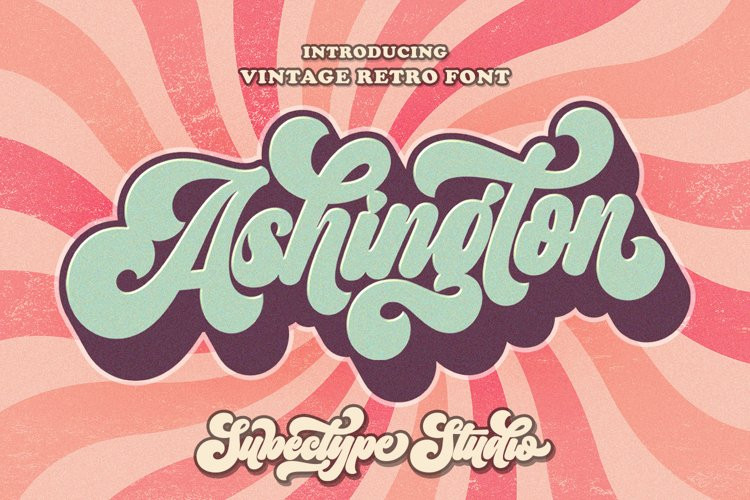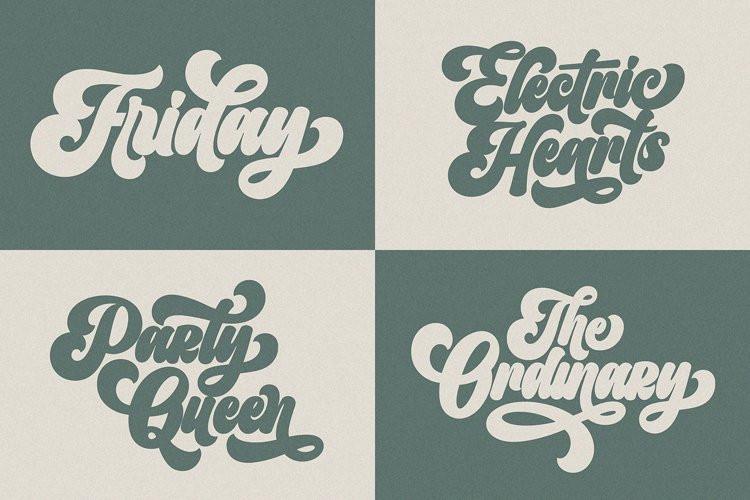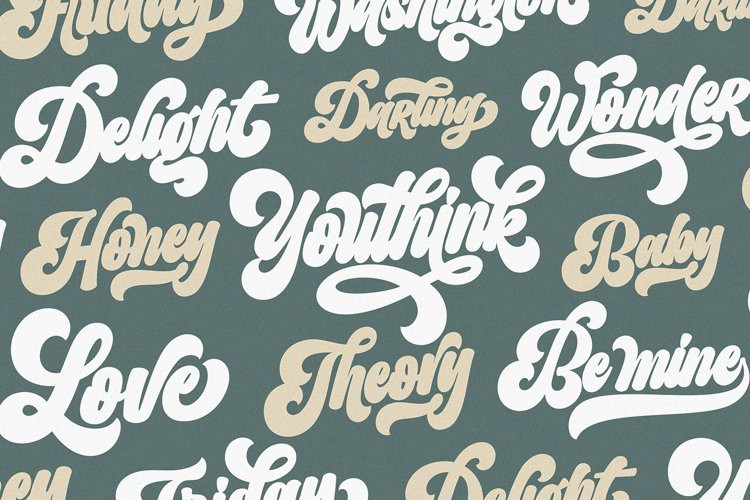
Ashington Font
Ashington FontThe Ashington is a Vintage retro font. Inspired from retro typography and lettering in the 70’s and 80’s combine with bold typography style.
This font perfect for vintage and retro design, badge, logos,t-shirt, poster, branding, packaging, signage,
book coverand so much more!